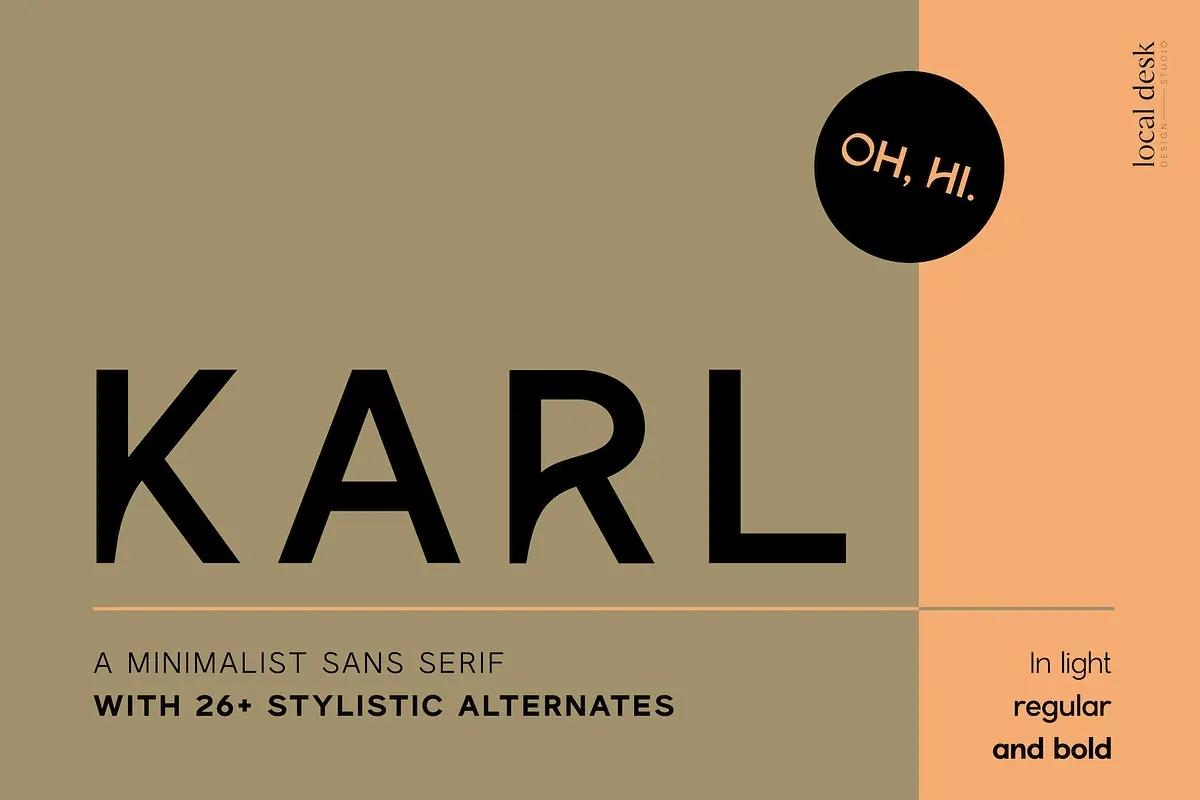
Upgrade your typography with Karl – Cool Sans w Unique Alternates Font Free Download, a modern sans serif typeface packed with personality and style. You need to purchase this font for commercial use. However, you can test it in personal or non-commercial projects using Karl – Cool Sans w Unique Alternates Font Free Download. Featuring clean lines, geometric balance, and distinctive alternate characters, this font is perfect for branding, editorial layouts, posters, and digital design. Designers love its creative versatility and bold presence. Download Karl – Cool Sans w Unique Alternates Font Free Download today and give your projects a fresh, contemporary edge.